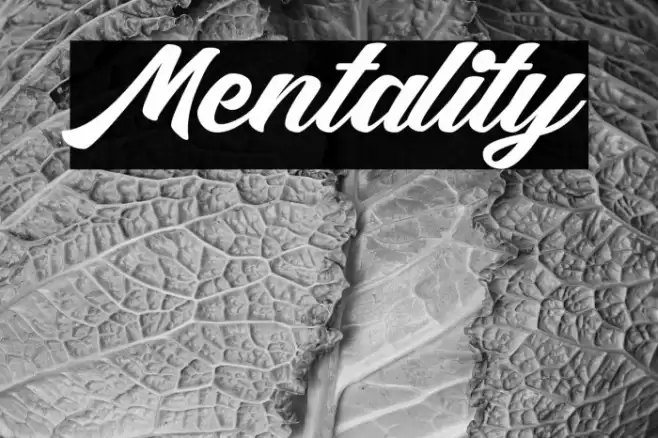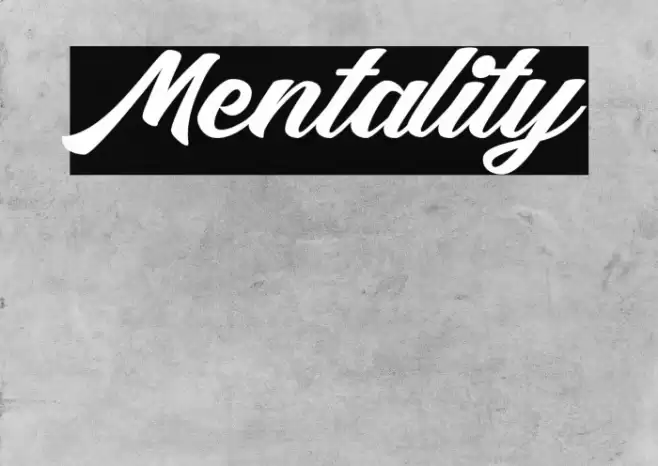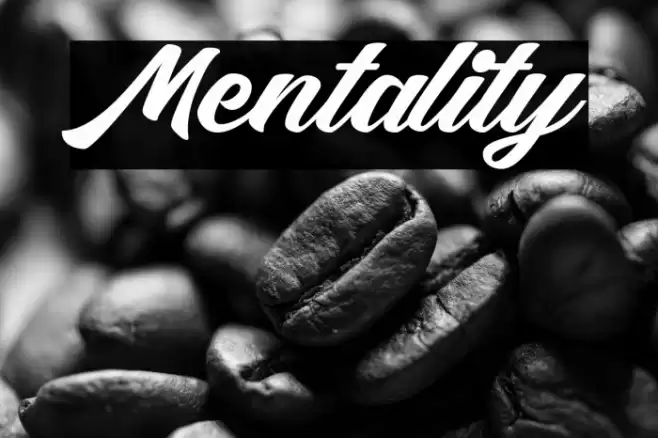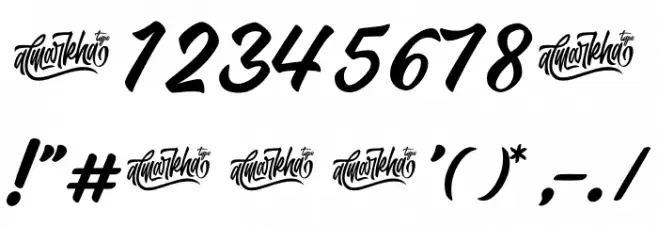
Mentality Font
Mentality Description
This font features a bold and expressive script style, characterized by its fluid, cursive letterforms that convey a sense of elegance and dynamism. The uppercase letters are slightly larger and more pronounced, while the lowercase letters maintain a consistent flow, enhancing readability. The numbers and special characters are designed to match the overall aesthetic, ensuring a cohesive look across all text. The strokes are thick and consistent, providing a strong visual impact, while the slight slant of the characters adds a touch of sophistication. This font is ideal for projects that require a personal and artistic touch.
A bold, expressive script font with fluid, cursive letterforms from Regular fonts.